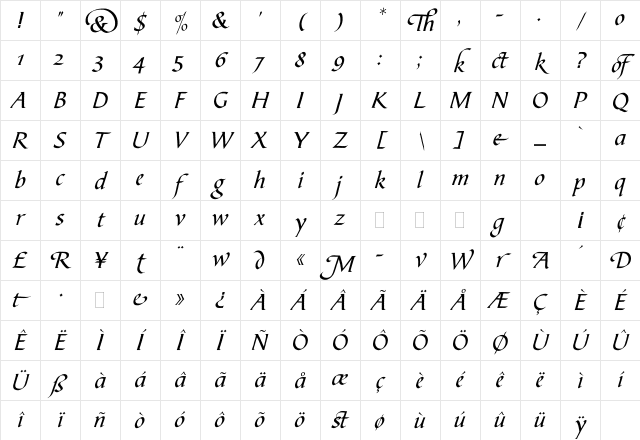
Bible Script LET Plain
Bible Script LET Family
Complete Bible Script LET Plain glyph index. Displaying only characters natively supported by Bible Script LET Plain font.
Design Context for Bible Script LET
Bible Script LET flows with the natural rhythm of handwritten lettering, making it ideal for designs that call for warmth and personal expression.
Font Pairing: Combine Bible Script LET with a simple geometric sans for maximum contrast - the tension between flowing curves and clean structure is a classic typographic pairing.
Pro Tip: Use Bible Script LET for short runs of text - names, titles, or taglines. Extended body copy in script faces tires the eye quickly.